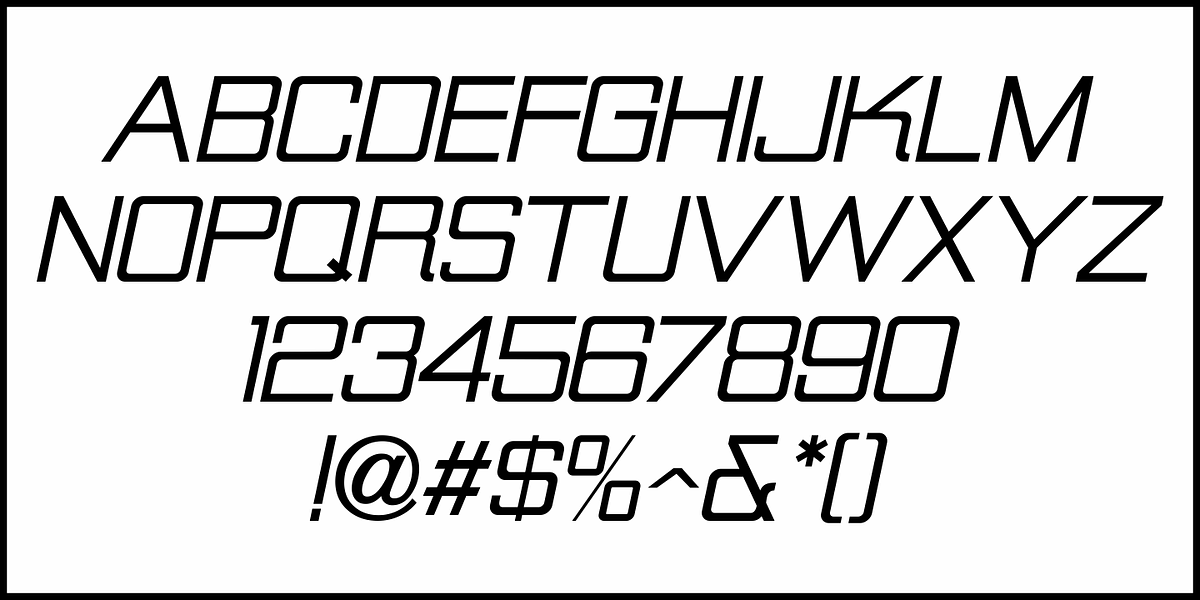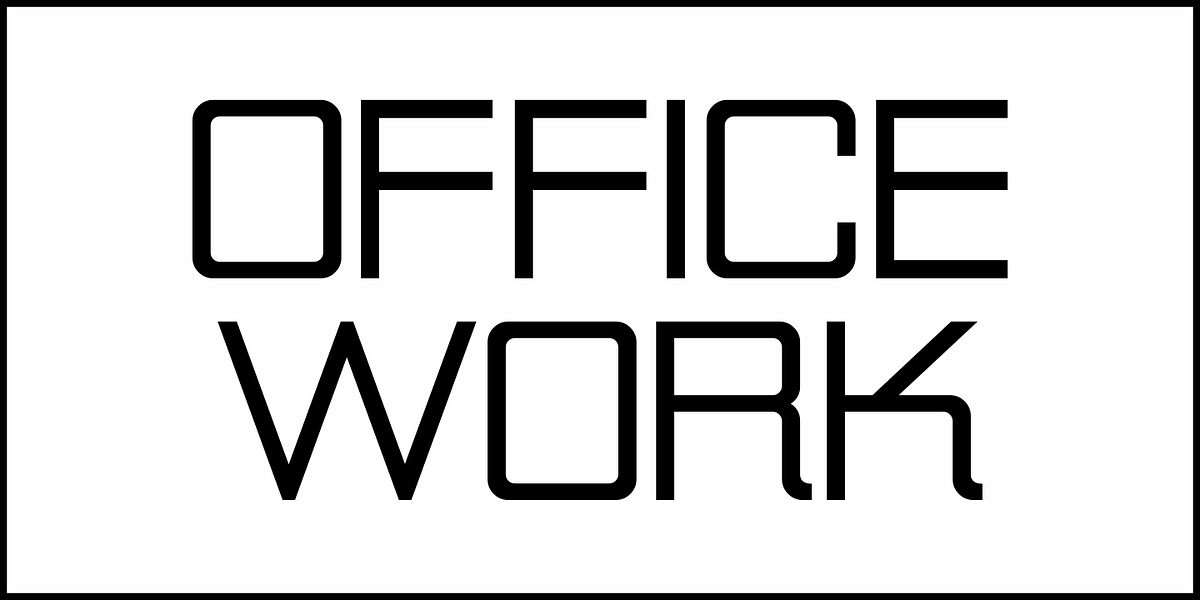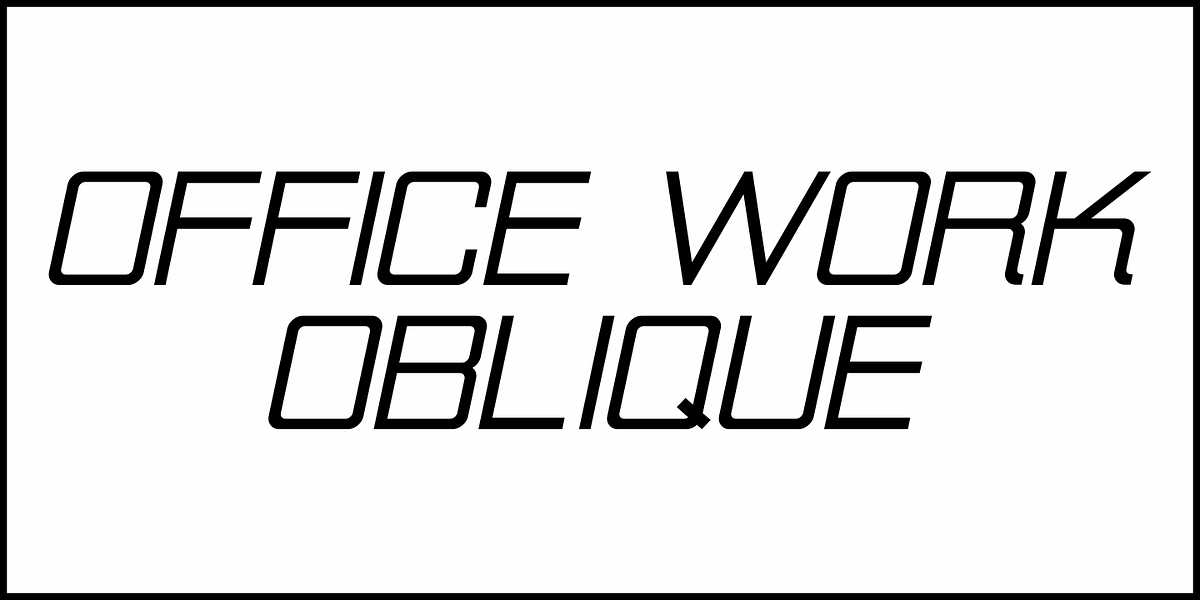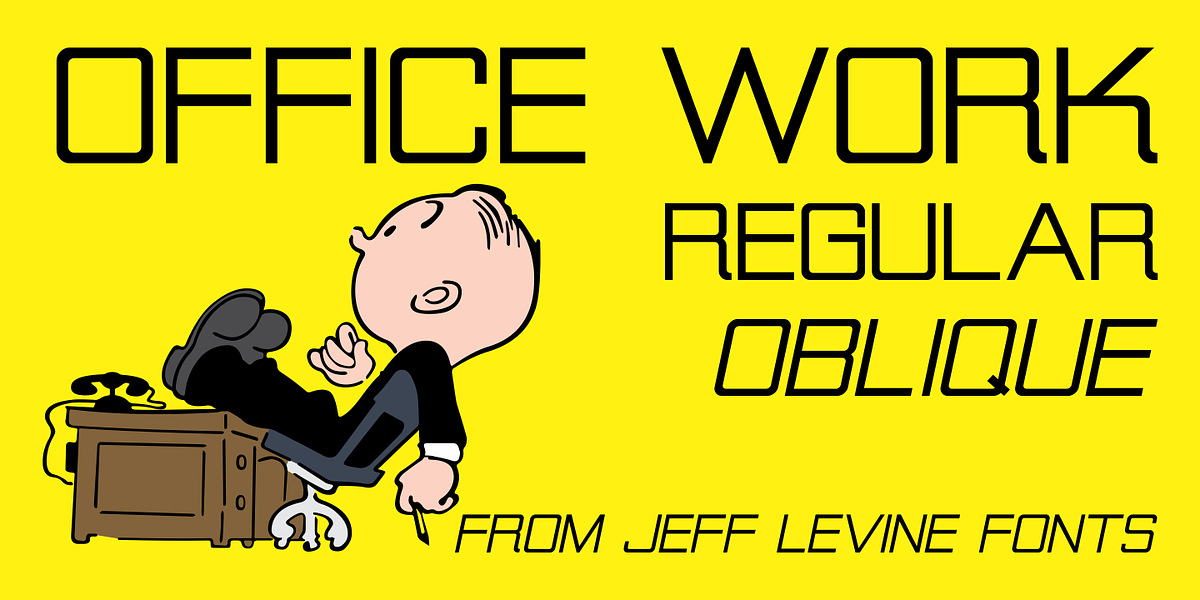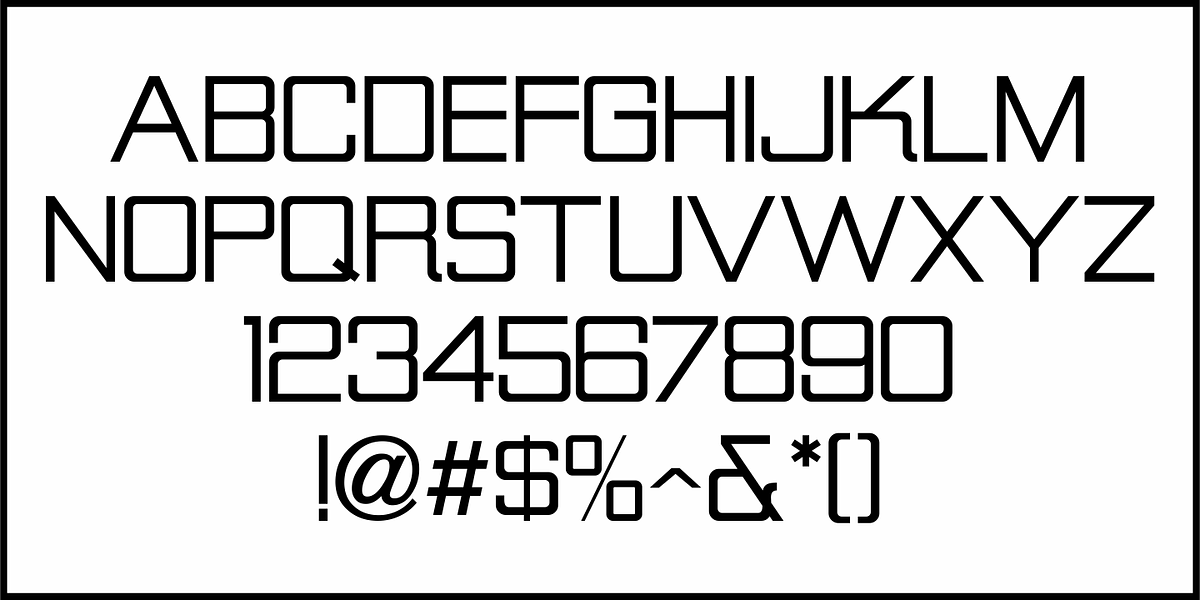
Office Work JNL
The 1965 film “Mirage” had its titles and credits hand lettered in a simple, thin sans serif with rounded corners and an overall square design.
This is now available digitally as Office Work JNL, in both regular and oblique versions.